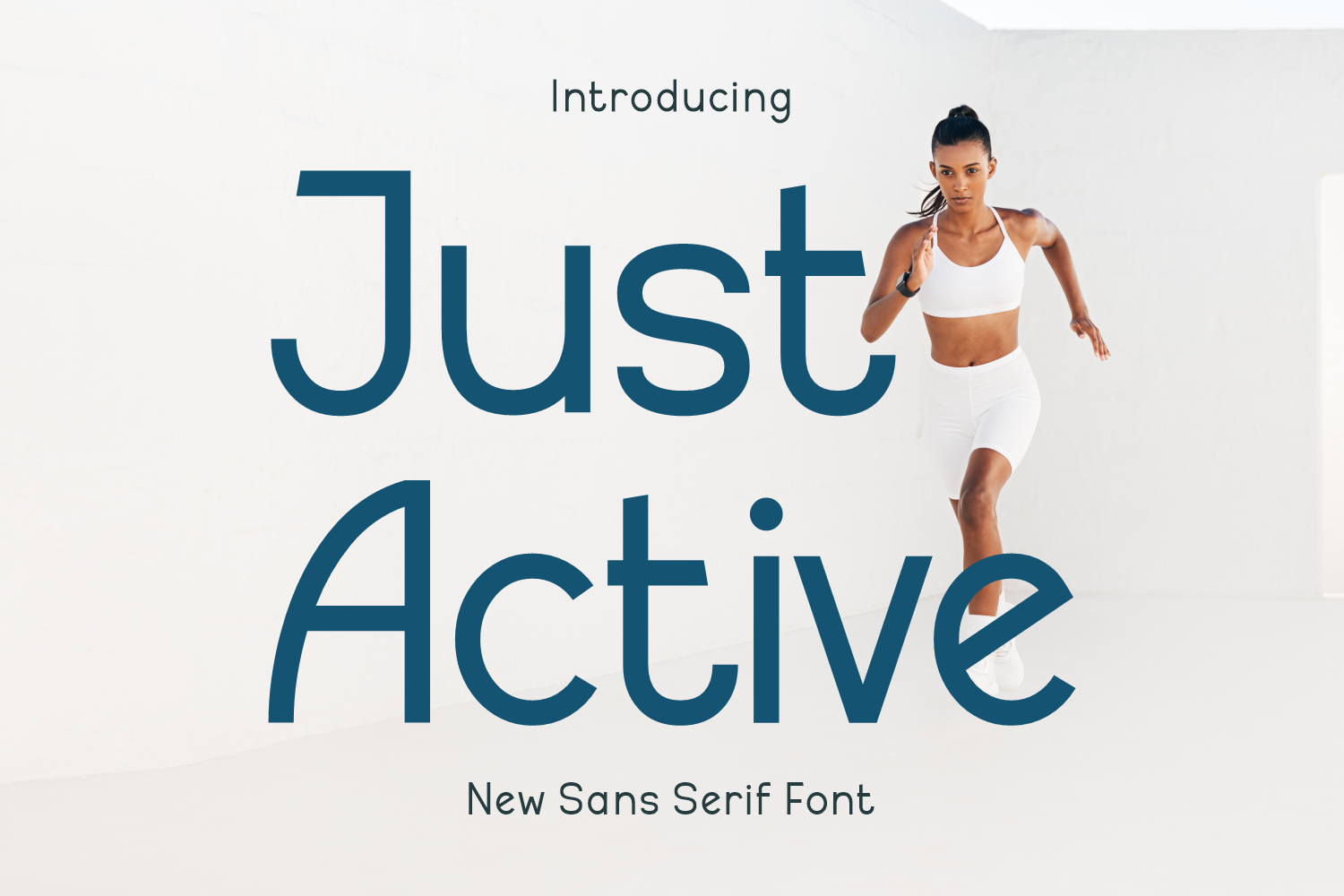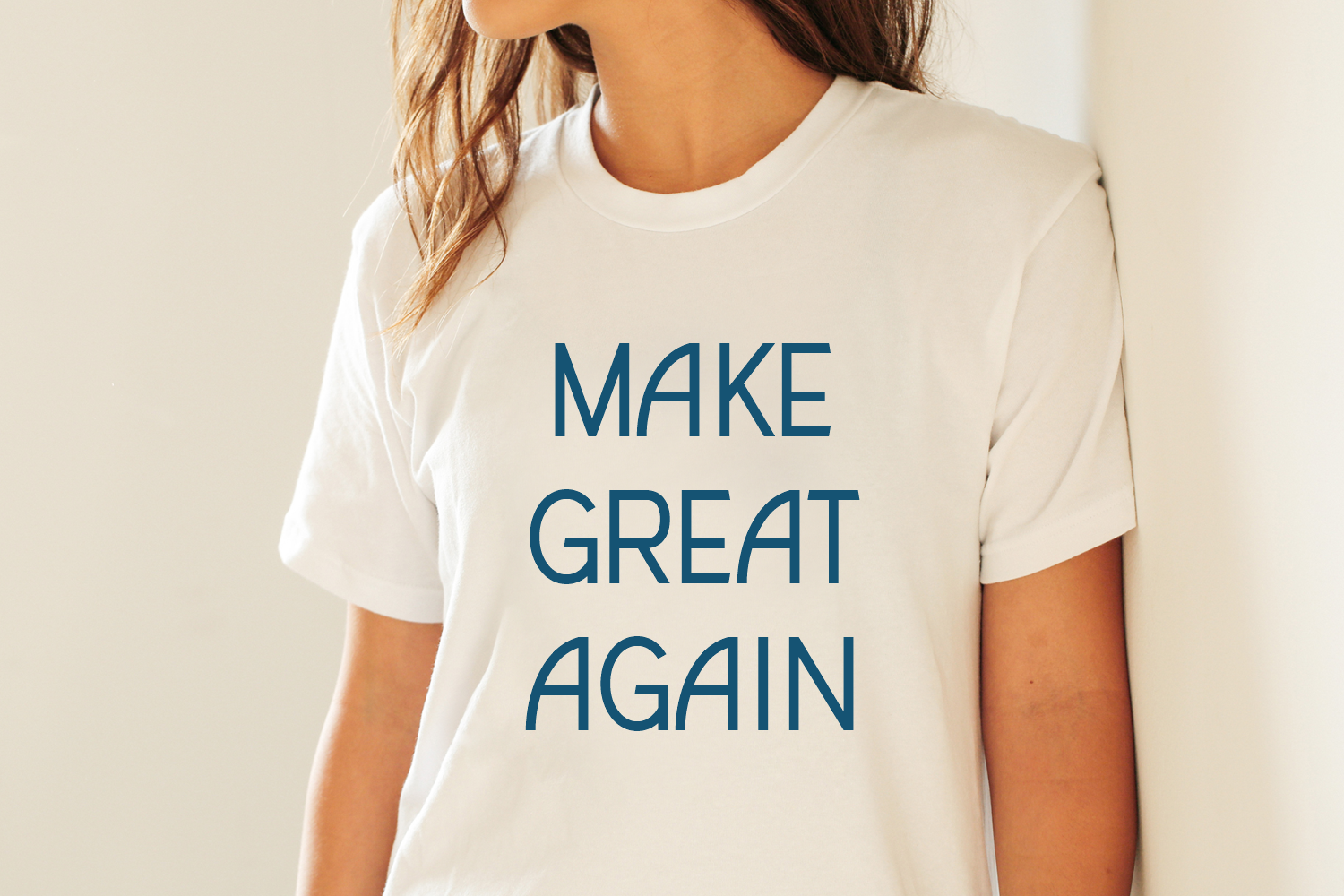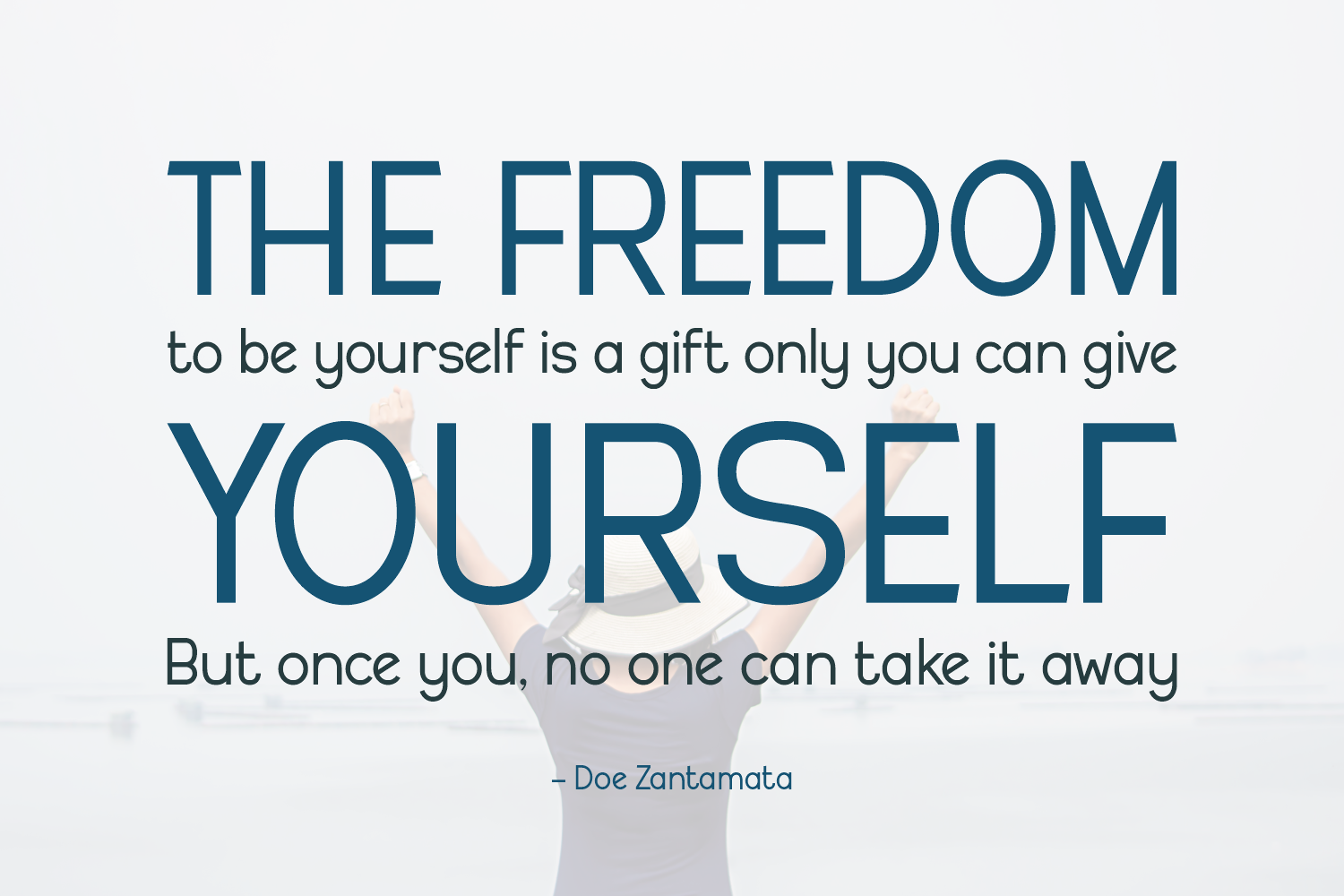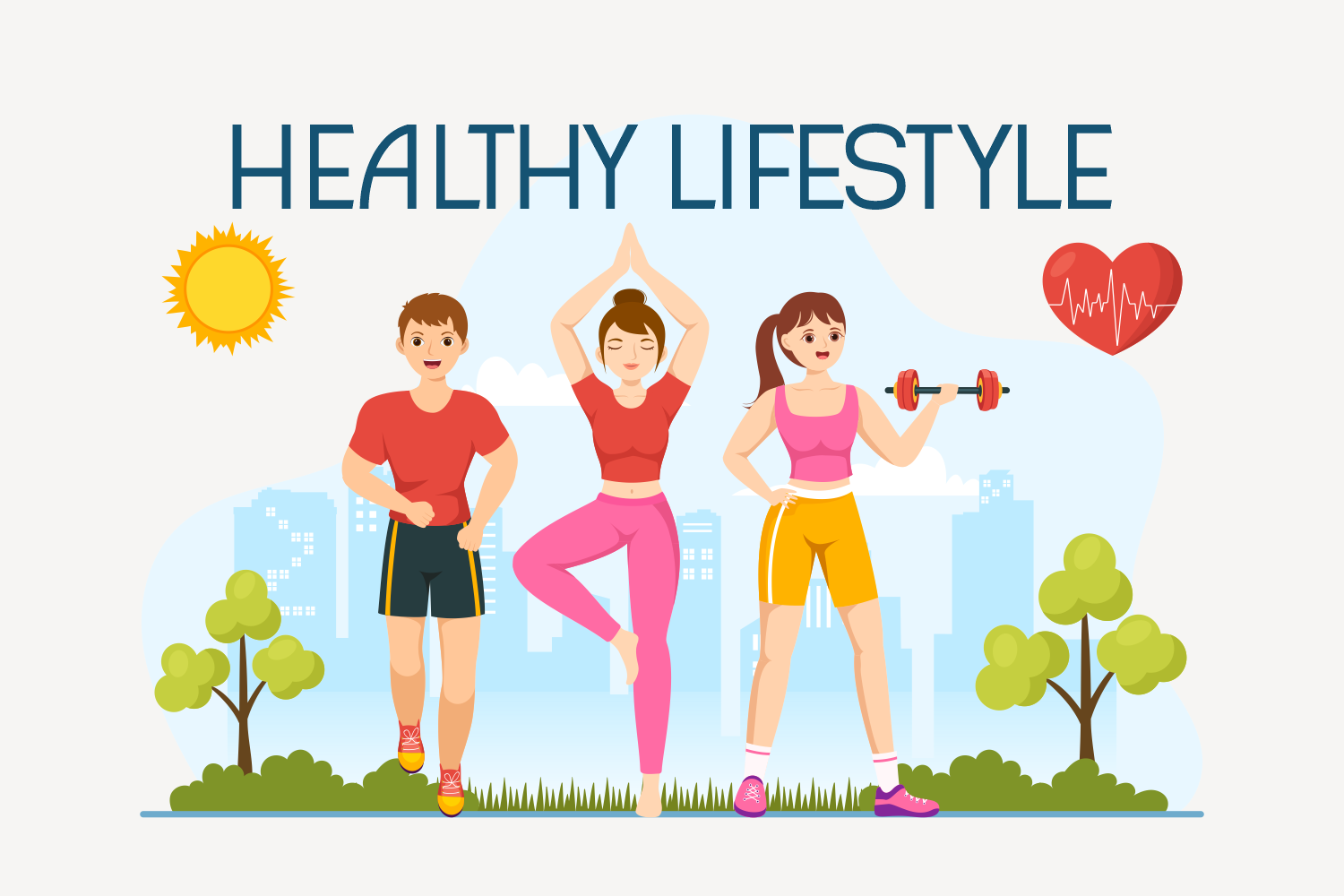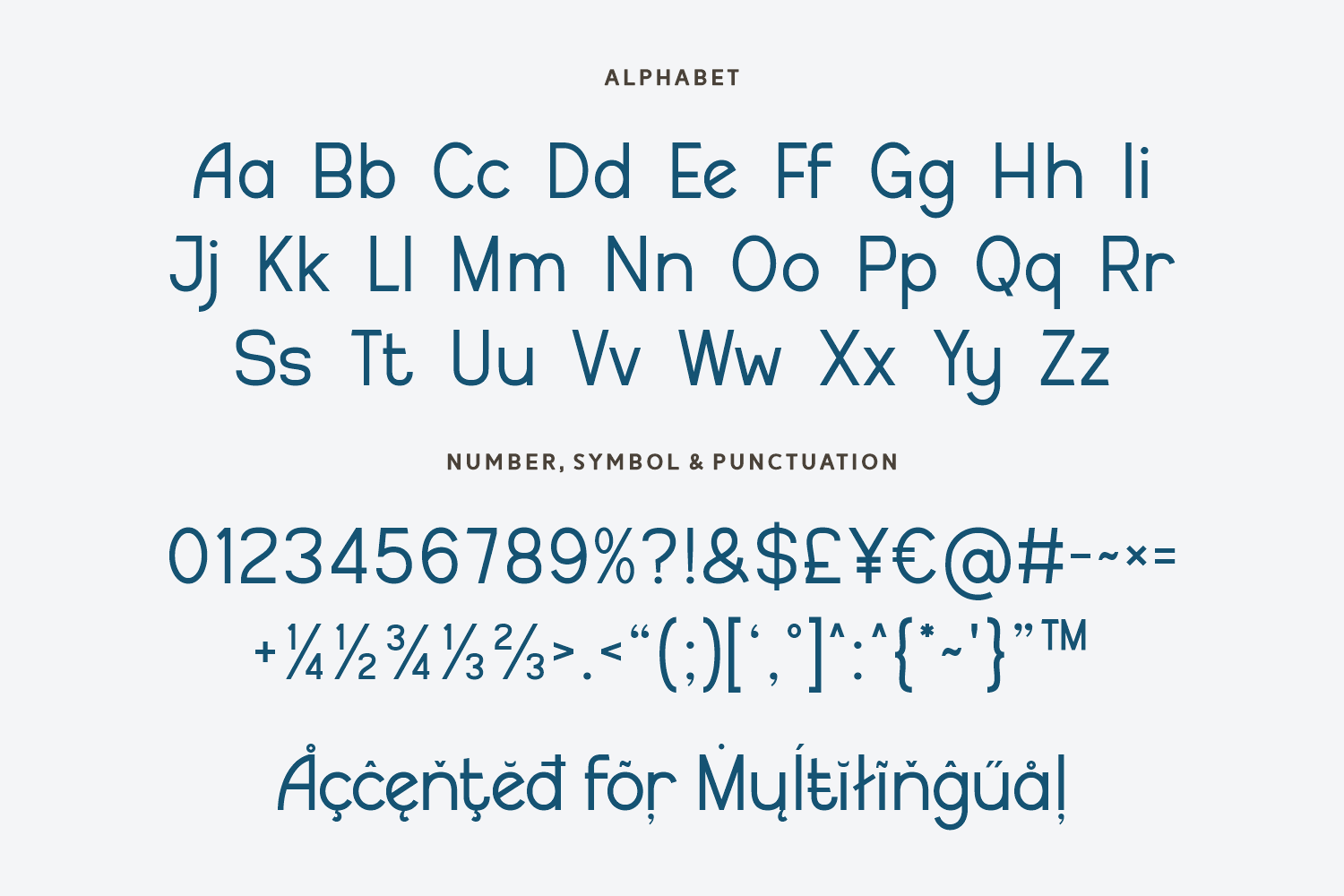
Just Active is a fresh, sporty sans-serif with playful curves and a friendly personality. Perfect for fitness brands, wellness projects, kids' products, and active lifestyle campaigns, it brings energy and approachability to any layout.